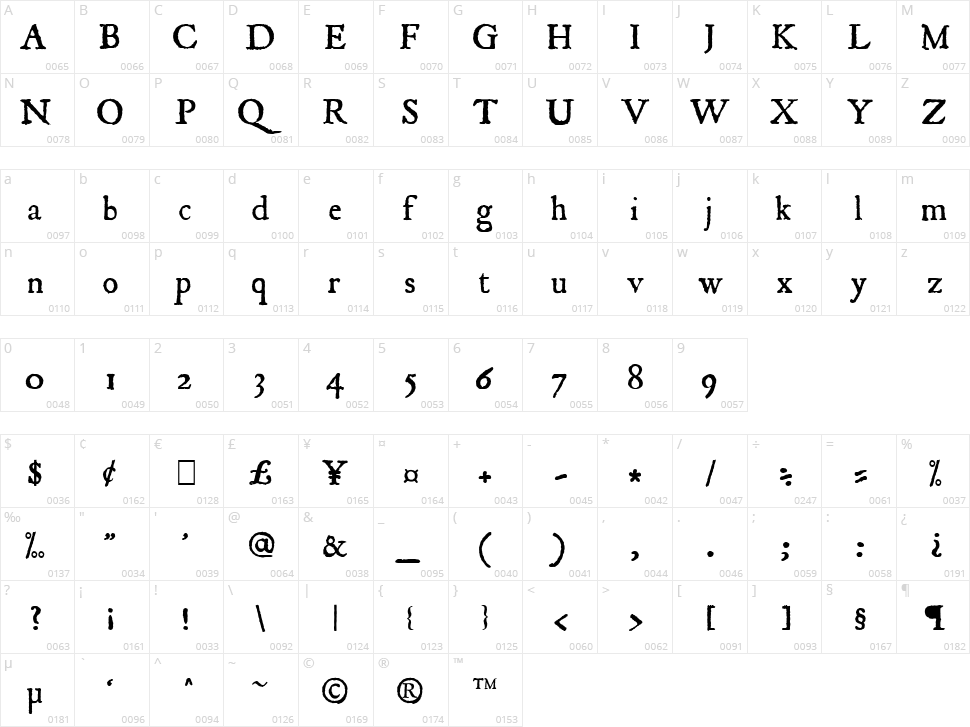
JSL Ancient
The "JSL Ancient" and "JSL Ancient Italic" fonts are based upon two
nearly identical typefaces of seventeenth-century English printers.
The first source used was "A compendious view of the late tumults &
troubles in this kingdom by way of annals for seven years", by James
Wright, printed by Edward Jones in 1685; the second was "Ars Pictoria,
or an Academy treating of Drawing, Painting, Limning and Etching", by
Alexander Browne, printed by J. Redmayne in 1668.
The two source typefaces are nearly identical, and the most interesting
features, such as the descender on the italic capital N, are present
in both. I used Redmayne's typeface primarily to fill in the missing
letters from Jones'. Both typefaces had several different versions of
certain italic capitals; I chose the more interesting ones. One feature
of Redmayne's italic typeface that was lacking in Jones' was the
peculiar extensions of horizontal strokes, used to reduce the amount of
whitespace used when justifying shorter lines of text. (I may eventually
produce a "JSL Ancient Italic Bold" which includes these extended
letters.)
Designer Name: Jeffrey S. Lee